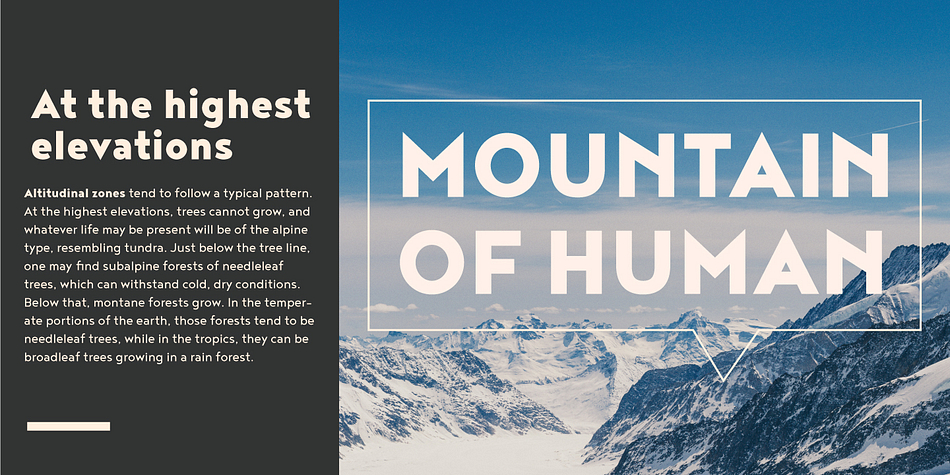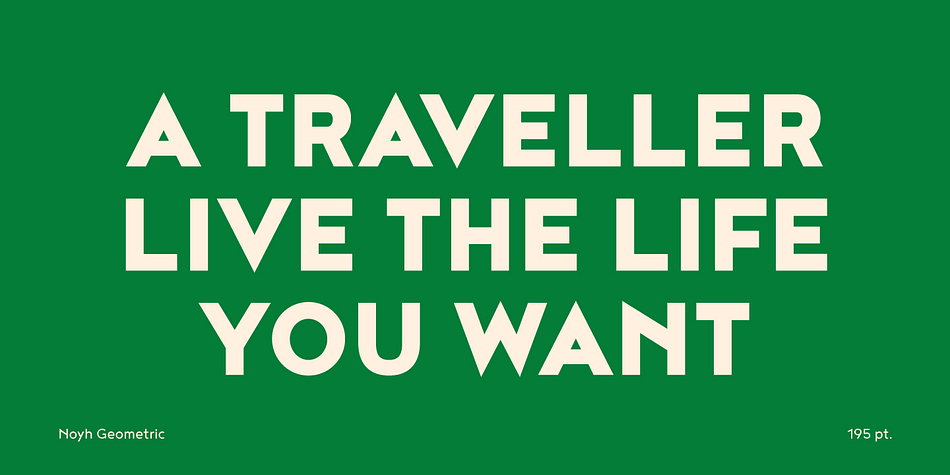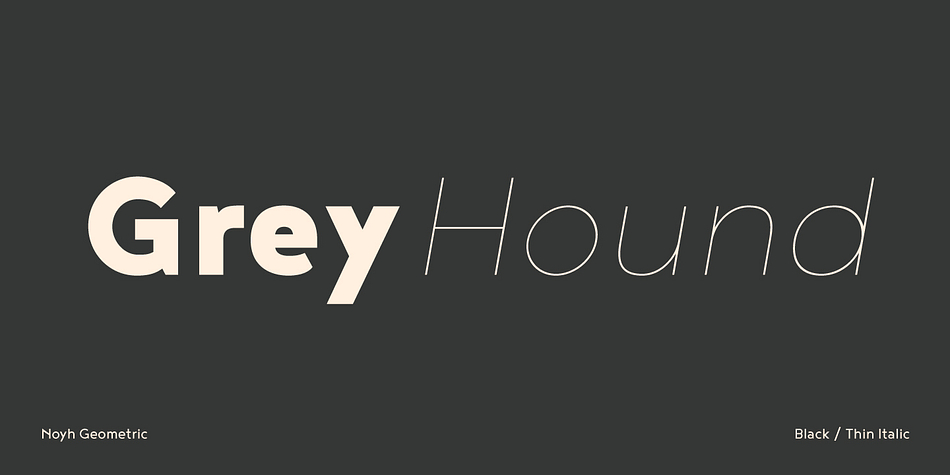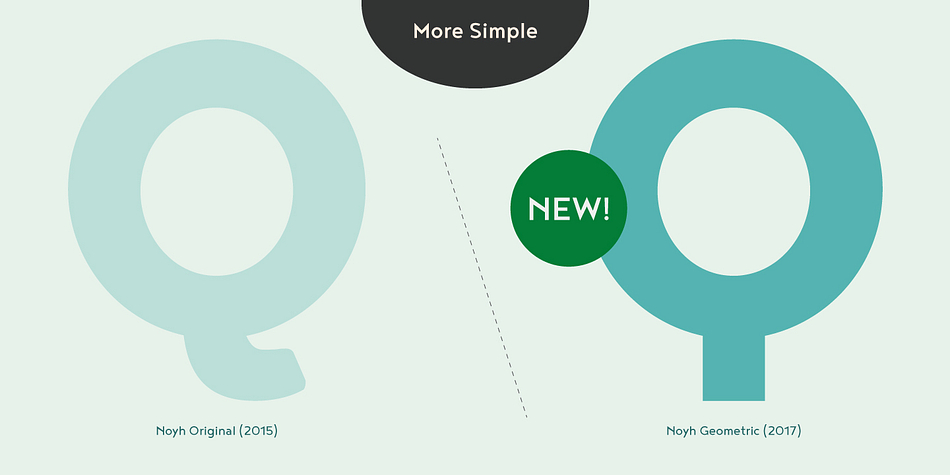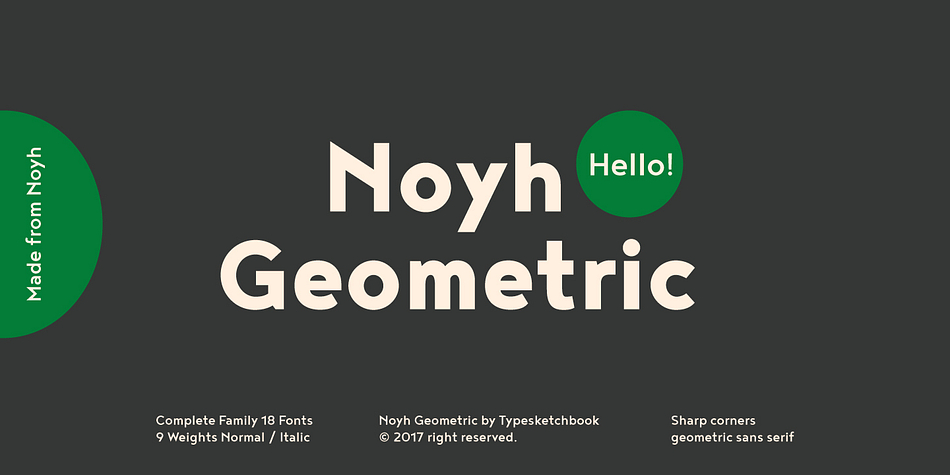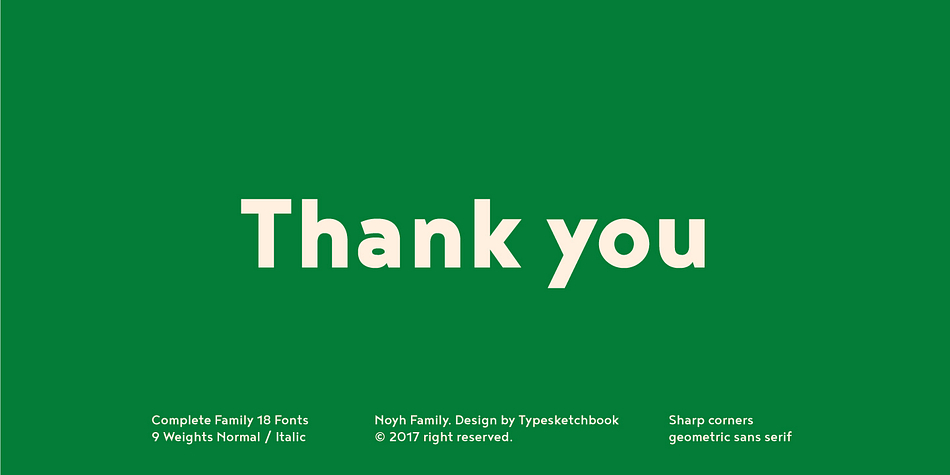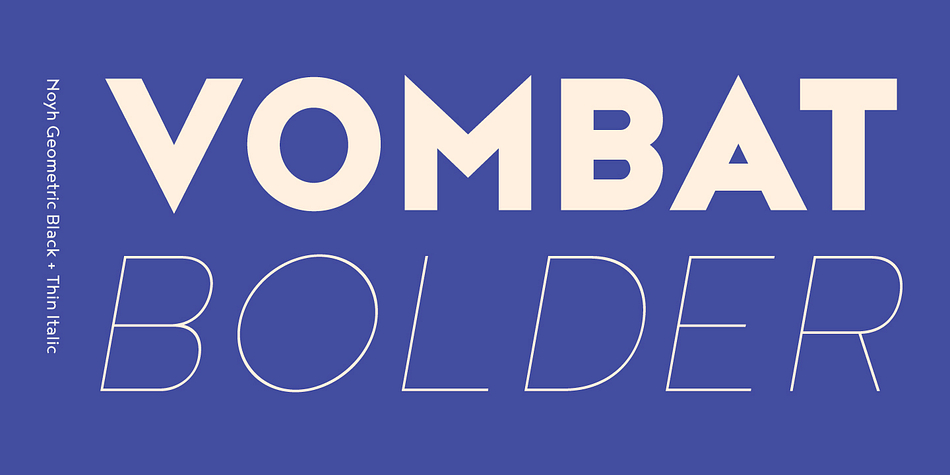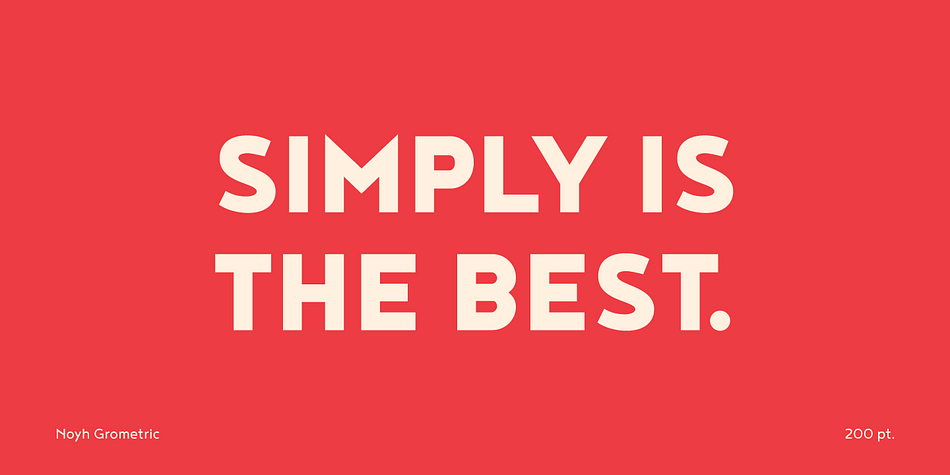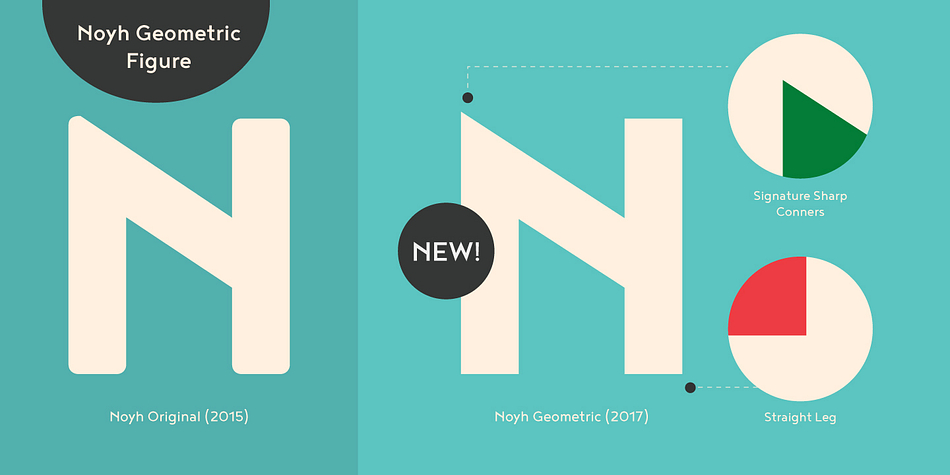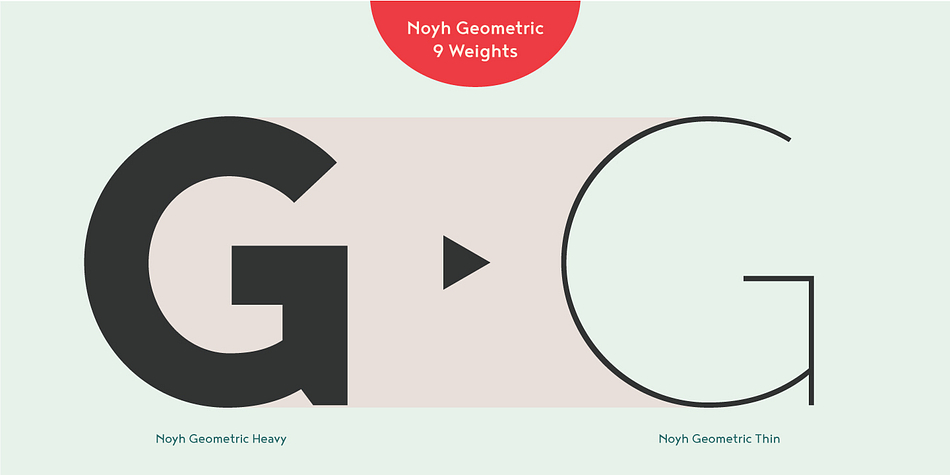
Noyh Geometric is a sans serif font family. This typeface has eighteen styles and was published by Typesketchbook.
Noyh Geometric is altered version of the original 2015 Noyh typeface.
We added sharp corners in apex, including the structure of typeface. Import to be more Corporate, the font family has flat terminals that harmonize with sharp corners. With all of these features , “Noyh Geometric” is a prominent, eye-catching and unique typeface.
It comes with 9 weights and italic type in order to suit for a multifunctional usage, especially for cooperative work, such as website, magazine, editorial, publishing , as well as packaging.